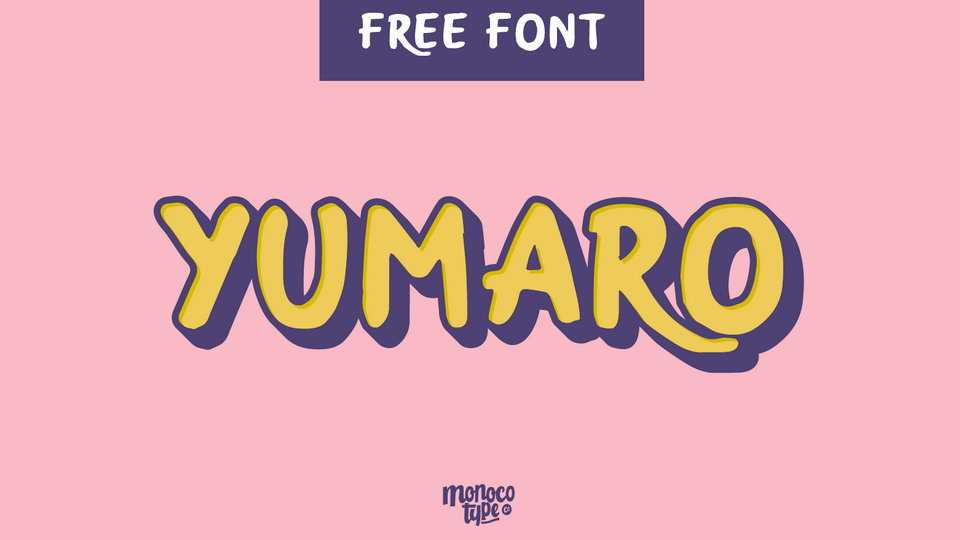
Download Yumaro typeface, a cute and playful handwritten font family in styles. Yumaro will look great on your invites, cards, crafts and any other fun projects.
Designer: Monocotype